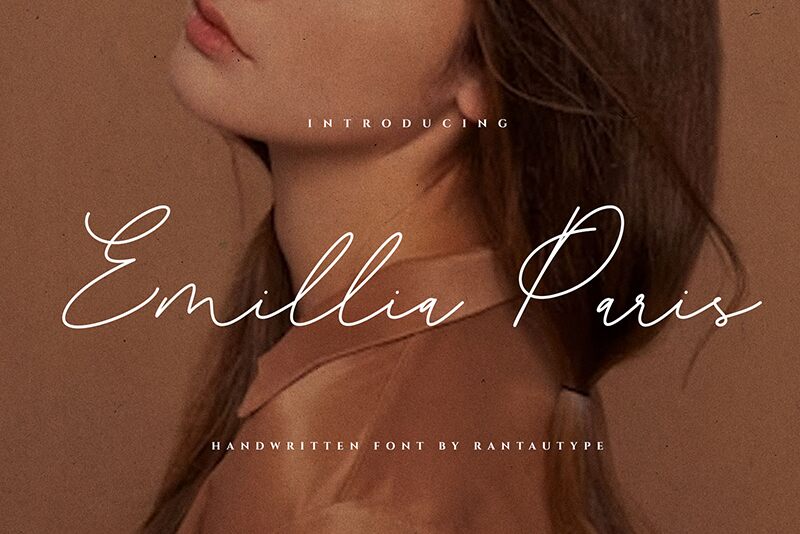
Emillia Paris font by RantautypeStudio is a light handwritten typeface designed with elegance and flowing sophistication. Each letter exhibits a contemporary feeling, where imperfections add a human touch as well. The font combines subtle curls for the ultimate personal touch and a pleasant overall visual look that makes each sentence genuinely remarkable.